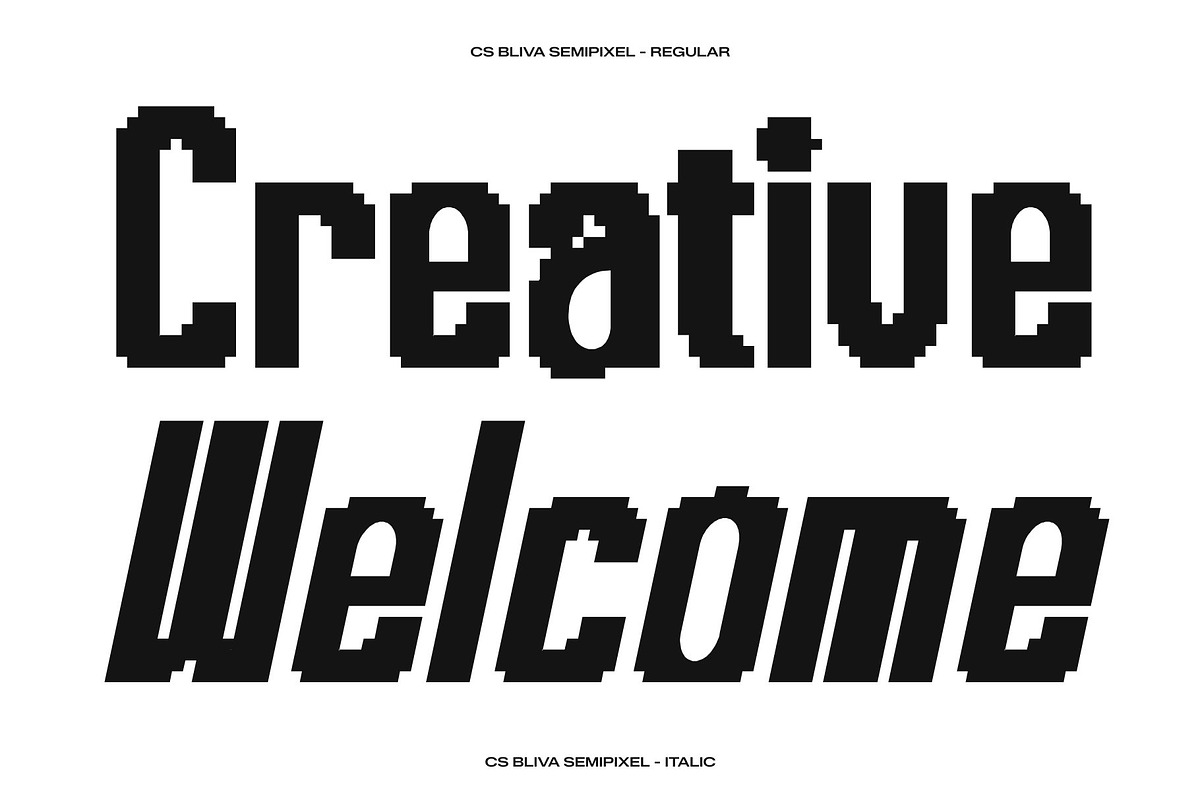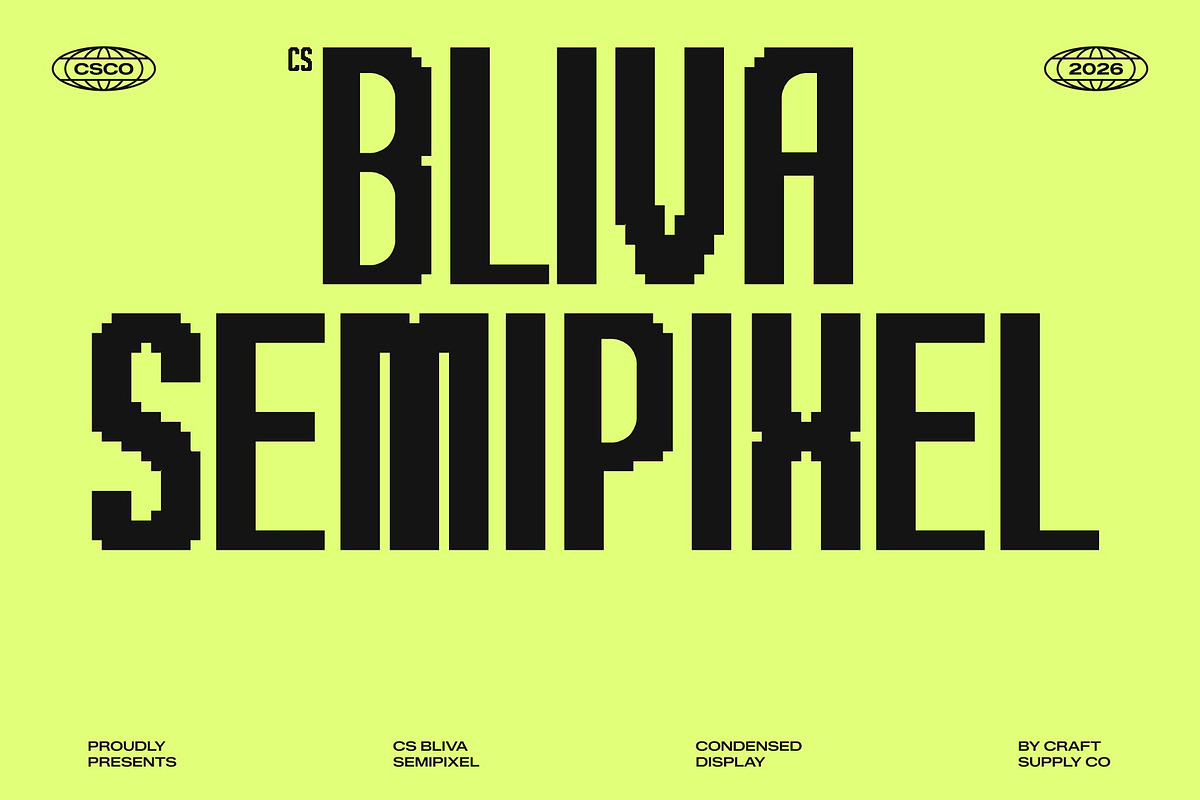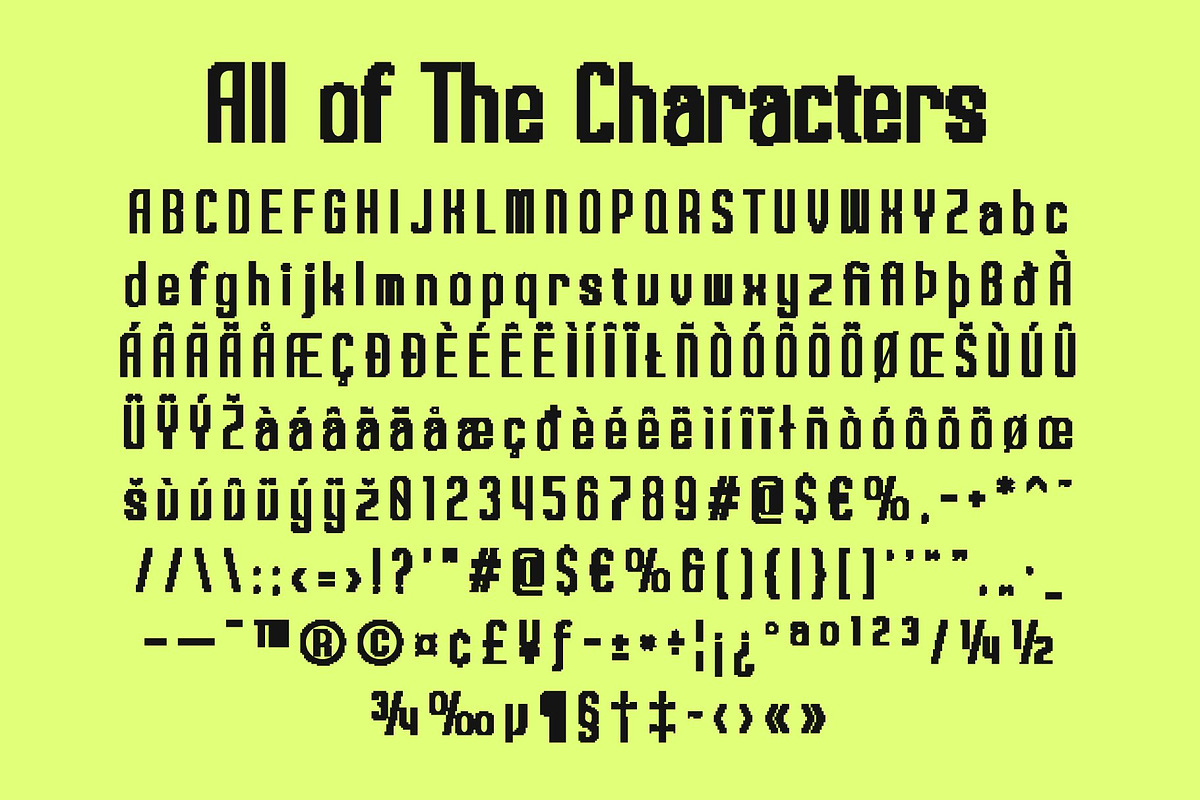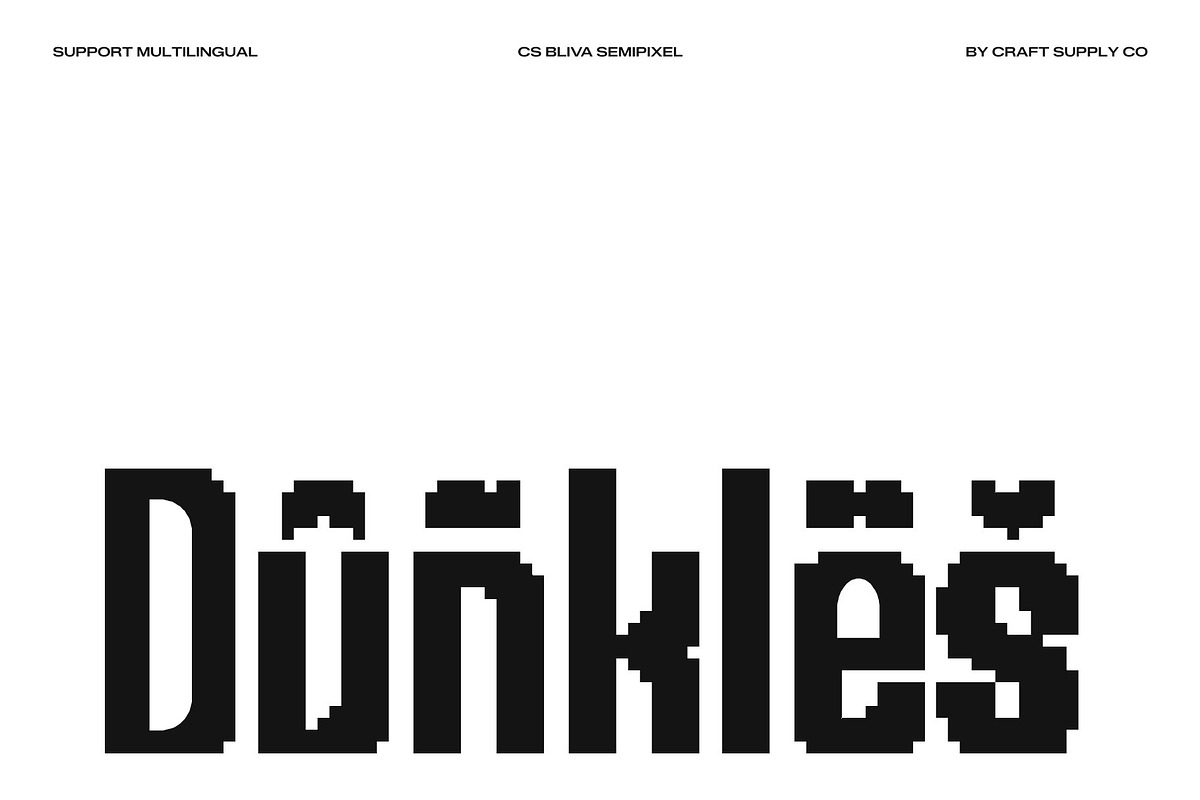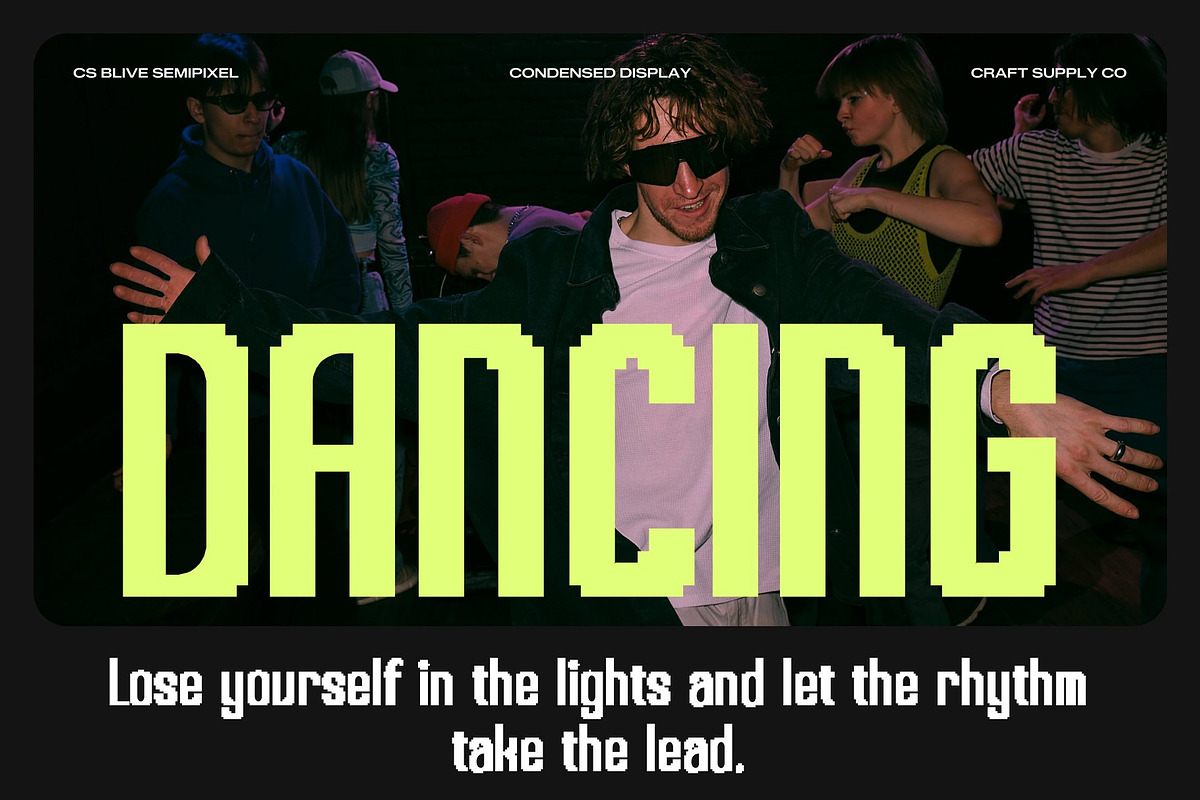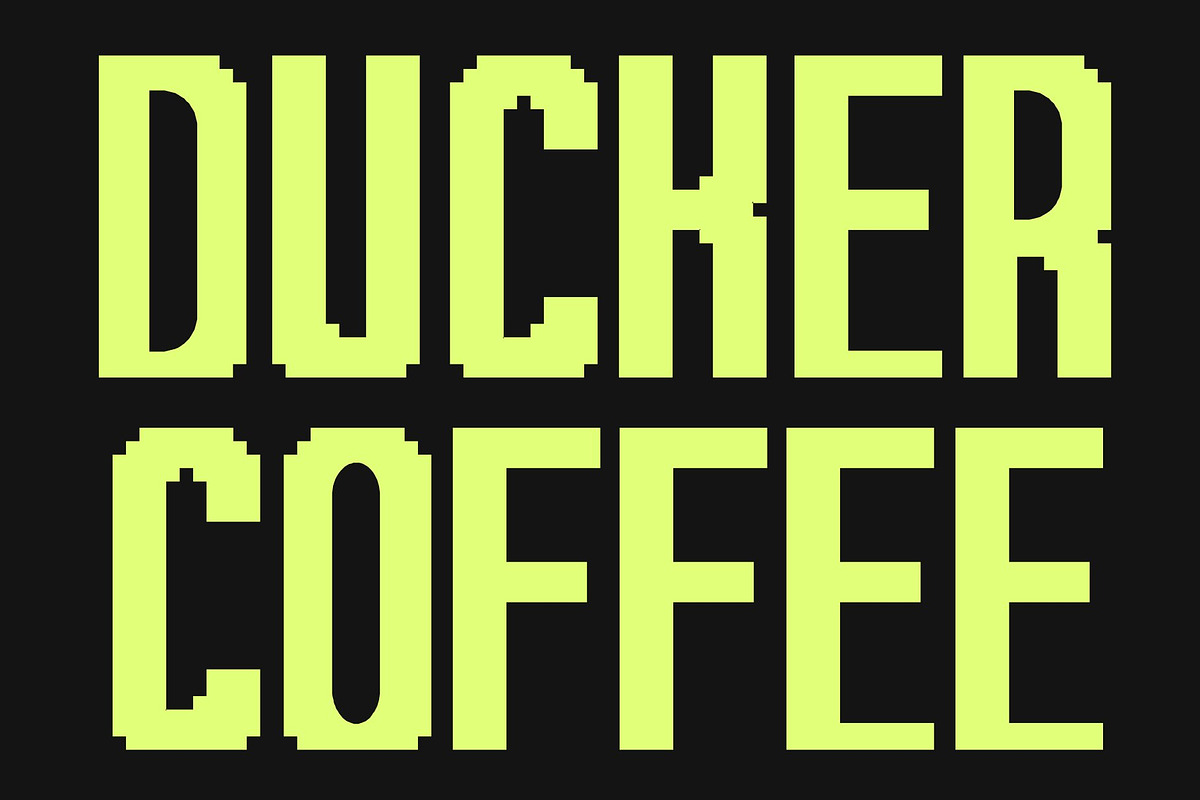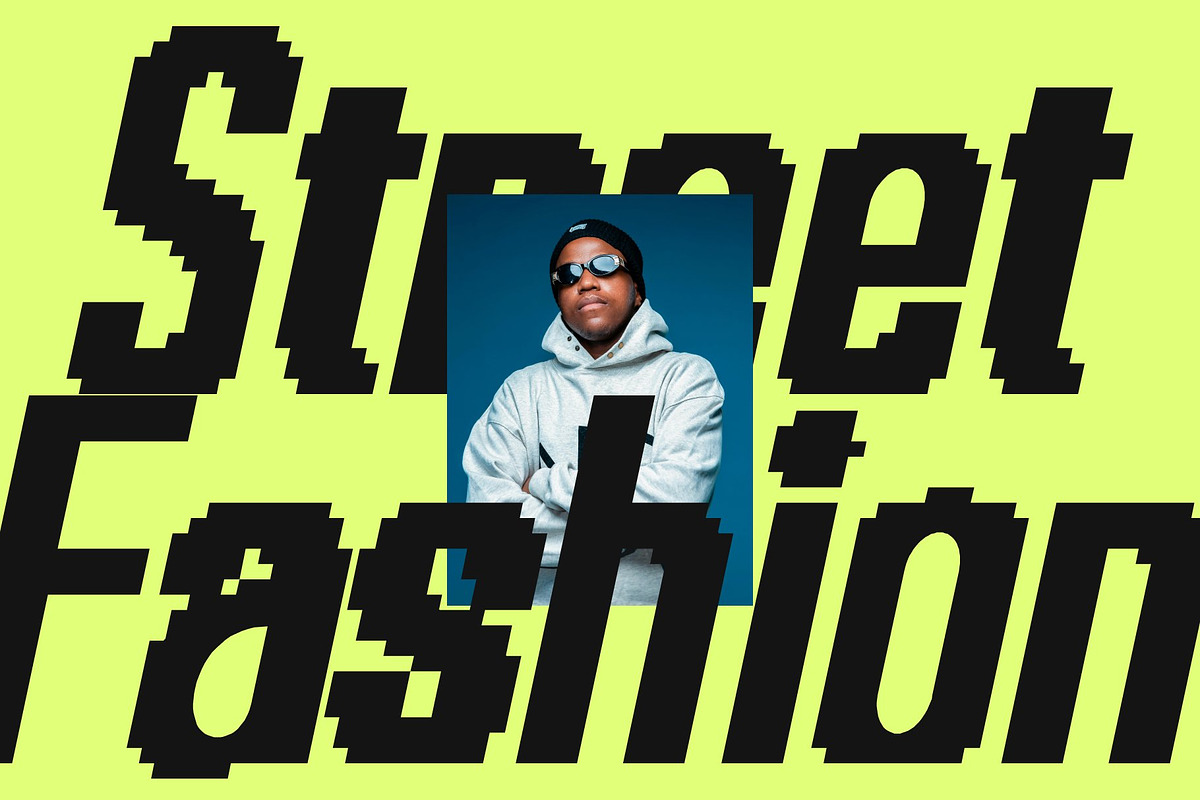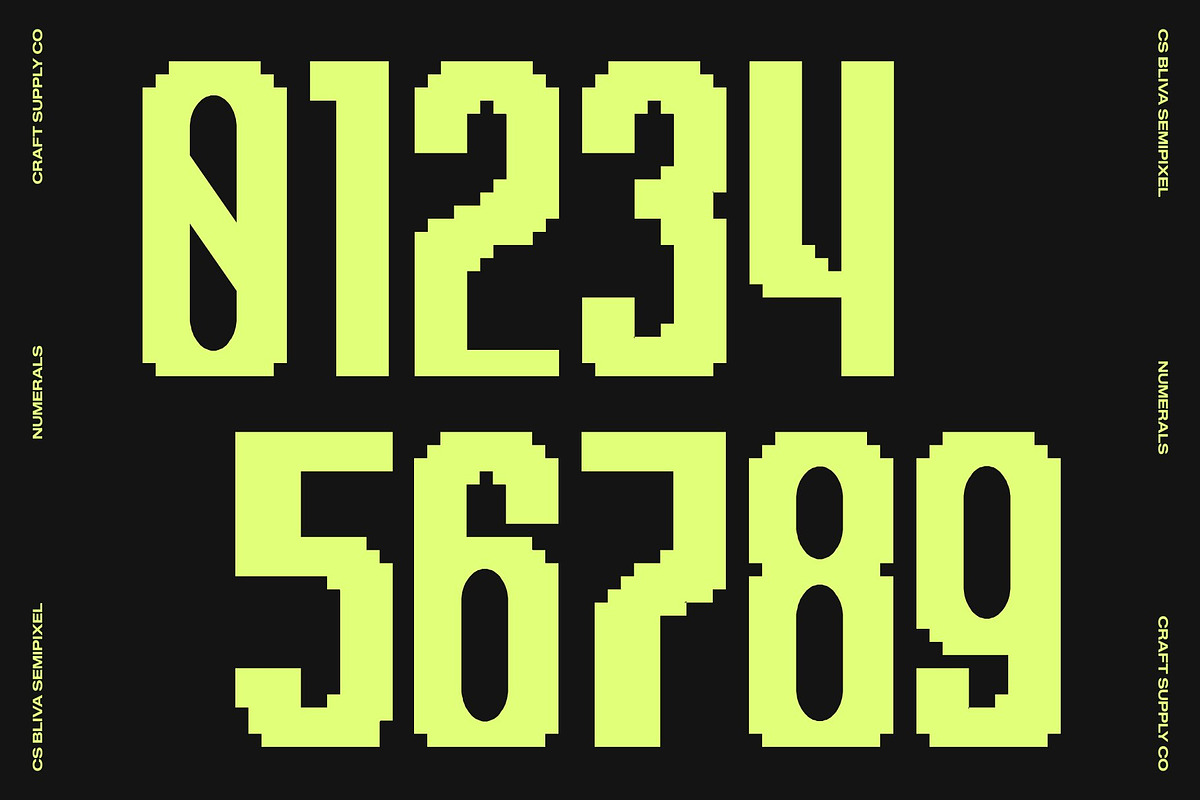
CS Bliva Semipixel
CS Bliva Semipixel – Condensed Sans Serif Font: Where Bold Efficiency Meets Smooth Digital Clarity
Compact Modern Forms with Powerful Visual Presence This is a condensed sans serif font designed to deliver bold efficiency and strong visual impact in tight spaces. Its compact proportions and contemporary structure create a clean, confident appearance filled with clarity, energy, and modern precision. Every character is carefully crafted to maximize readability while maintaining a commanding visual personality, making the font ideal for impactful headlines and modern display layouts.
Semipixel Style with Smooth Futuristic Geometry This font combines pixel-inspired square forms with modern curves and refined details. Unlike traditional rigid pixel fonts, its smooth construction softens the geometric edges, creating a cleaner and more contemporary digital appearance. This balance between retro pixel aesthetics and sleek modern typography gives the font a futuristic and highly versatile identity.
Modern Tech Aesthetic with Urban Energy This font delivers a typographic identity that feels technological, dynamic, and visually immersive. Its compact forms and smooth digital texture evoke gaming culture, startup innovation, futuristic interfaces, and modern streetwear aesthetics, making it perfect for high-energy creative projects.
Perfect for Tech Branding, Gaming, and Streetwear This font suitable for UI and app design, startup tech branding, gaming identities, streetwear graphics, technology logos, digital event posters, technology websites, and futuristic promotional materials. Its semipixel forms make it ideal for logos, headlines, interfaces, merchandise, social graphics, and visual identities that seek a bold and authentic tech-inspired appearance.
CS Bliva Semipixel Regular
CS Bliva Semipixel Italic